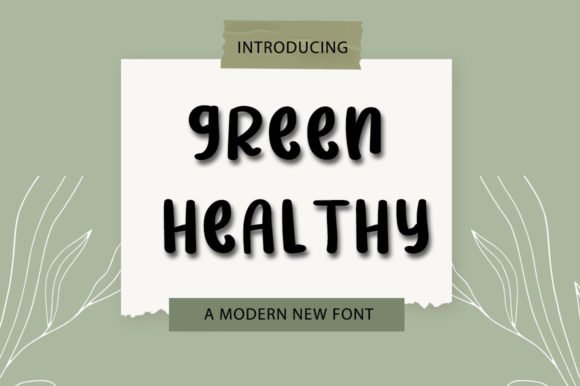
Introduction to Green Healthy Font
Green Healthy is a cute and casual handwritten font that will look outstanding in any context.
Whether you’re looking for fonts for Instagram or calligraphy scripts for DIY projects, this font will turn any creative idea into a true piece of art Green & Healthy is great for logos, headings, t-shirts, letterhead, signage, labels, news, posters, badges, etc.
Key Features of Green Healthy Font
Why Choose Green Healthy Font?
Green Healthy Font offers exceptional quality and versatility, making it a valuable addition to your design toolkit. Whether you’re creating for personal projects or commercial use, Green Healthy Font delivers professional results.